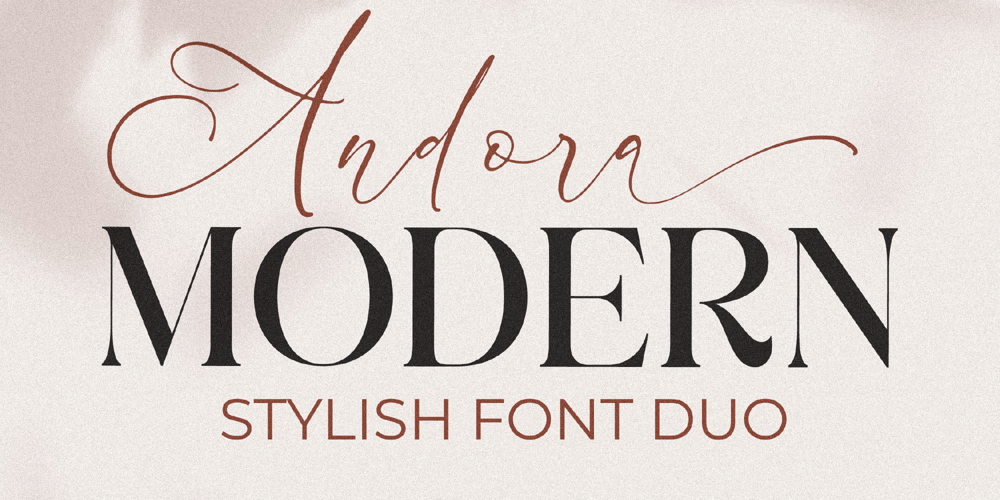
Andora Modern Script Font Family was designed by Heru Utama Putra and published by Letterena Studios. Andora Modern Script contains 2 styles and family package options. Andora Modern is a stylish and gorgeous font duo (serif and script) perfect for your favorite projects. Fall in love with its incredibly distinct and timeless style and use it to create spectacular designs!This font is PUA encoded which means you can access all of the amazing glyphs and ligatures with ease!